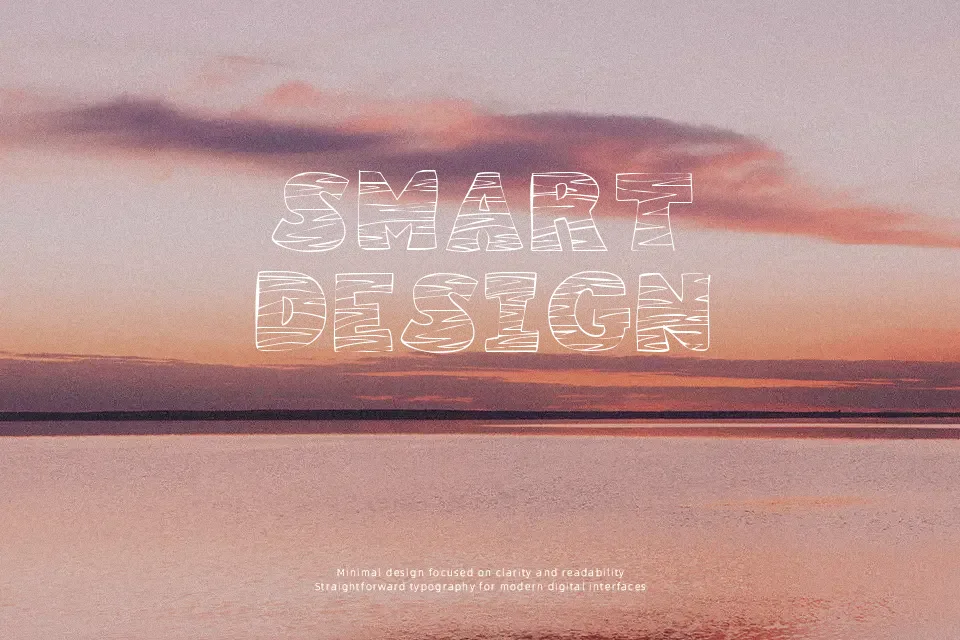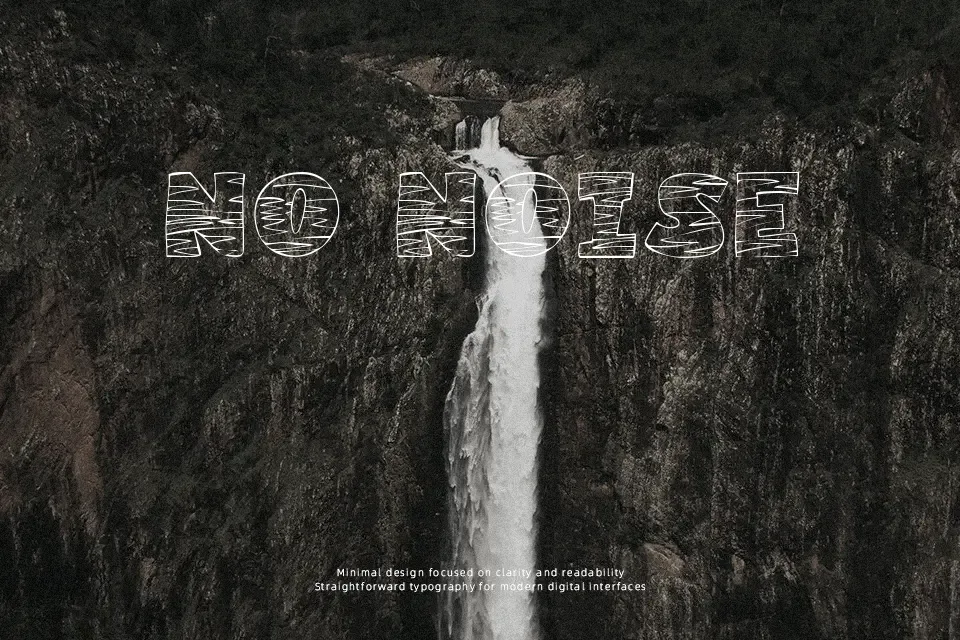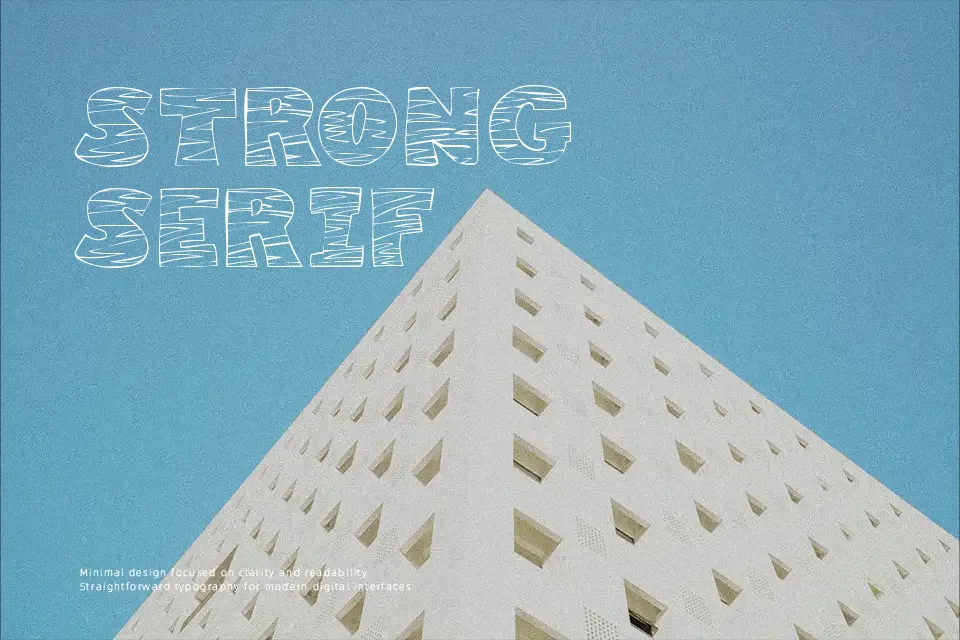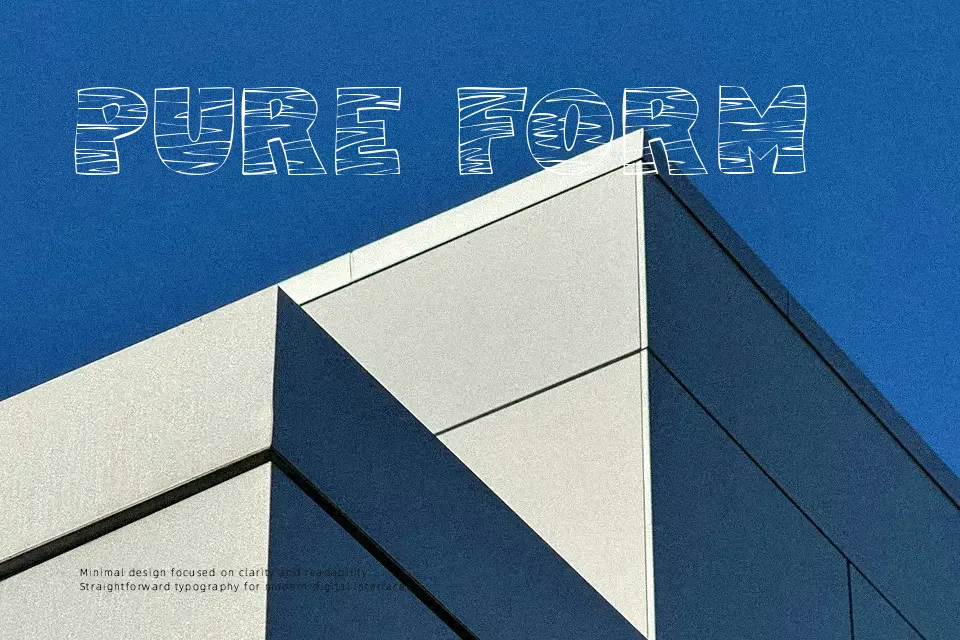
KR Tigrrr Font
Designed by Kat's Fun Fonts
Jagged strokes and irregular letterforms give KR Tigrrr a wild, almost claw-scratched appearance that immediately grabs attention. The spacing feels tight and slightly chaotic, reinforcing its aggressive, high-energy tone. It leans heavily into decorative display territory, making it more about visual impact than readability. This works well for gaming graphics, edgy posters, or themed merchandise where attitude matters more than clarity. However, the stylization quickly becomes tiring in longer text blocks, and it can clash with minimal or professional layouts. It performs best when used sparingly as a focal headline rather than supporting content.
gaming title graphics
horror or action posters
streetwear branding
album or mixtape covers
corporate presentations
clean UI interfaces
Perfect for branding, gaming, and headline, with a bold and decorative style.